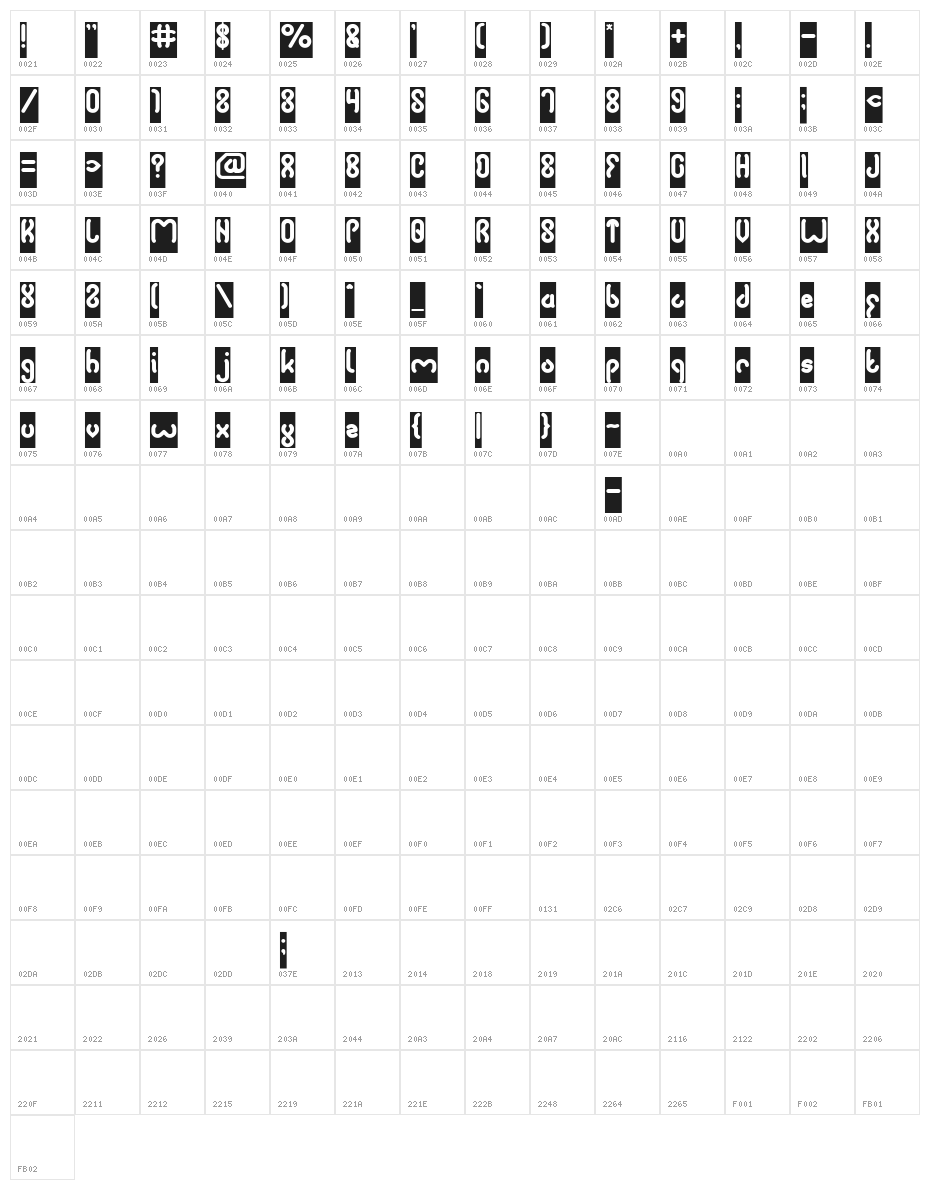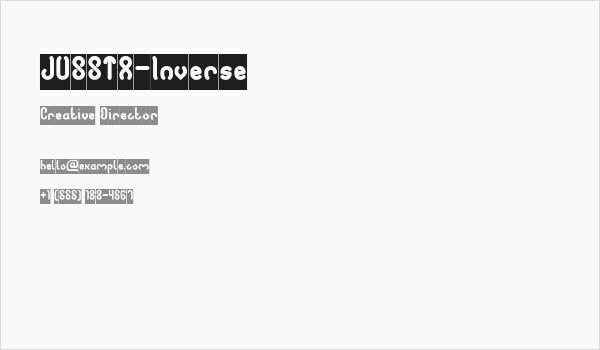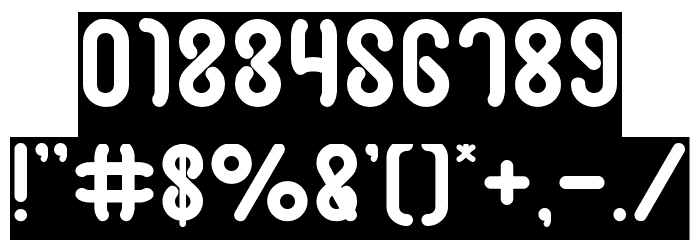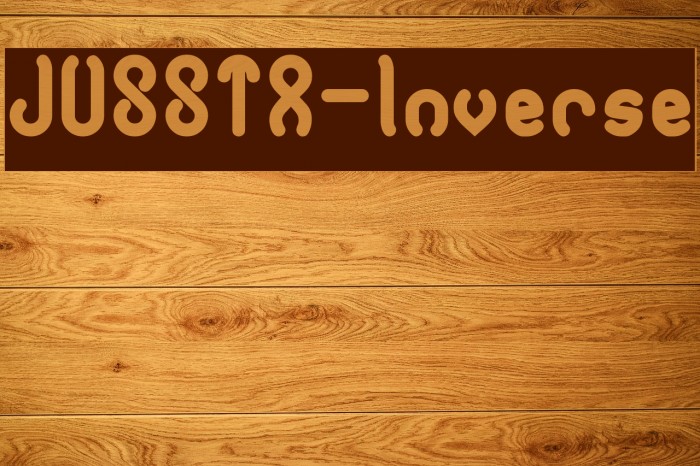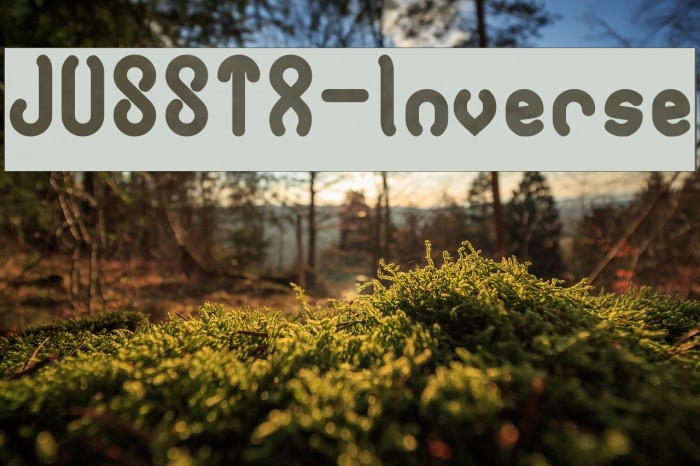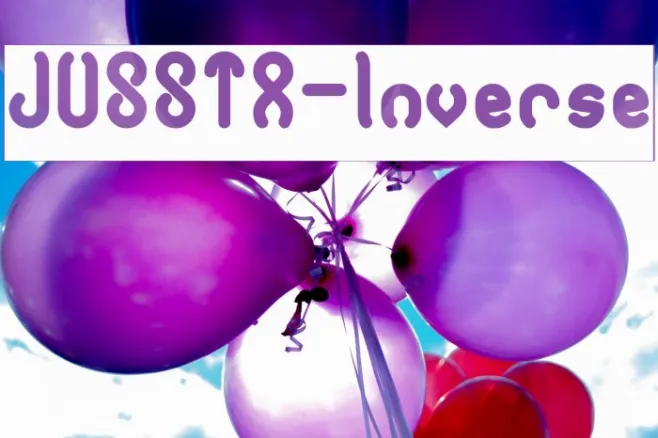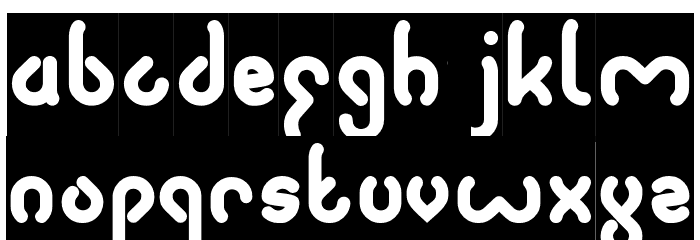
JUSSTA-Inverse Font
JUSSTA-Inverse Description
This font features a unique and playful design with rounded, bulbous shapes and a consistent stroke width throughout. The characters have a distinct, almost tubular appearance, with some letters incorporating loops and curves that add to the whimsical feel. The uppercase and lowercase letters maintain a cohesive style, while the numerals and special characters follow the same design principles, ensuring uniformity across all glyphs. The font's bold and eye-catching nature makes it suitable for creative and informal applications, where a touch of fun and originality is desired. Its distinct style is sure to capture attention and add a lively element to any project.
| Overall Style | Playful, Modern |
| Proposed Projects | Ideal for children's books, playful branding, posters, and creative digital content. |